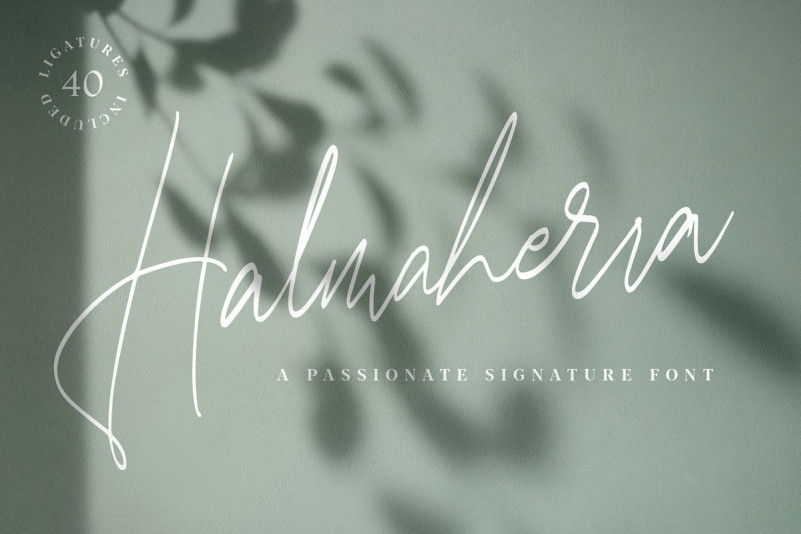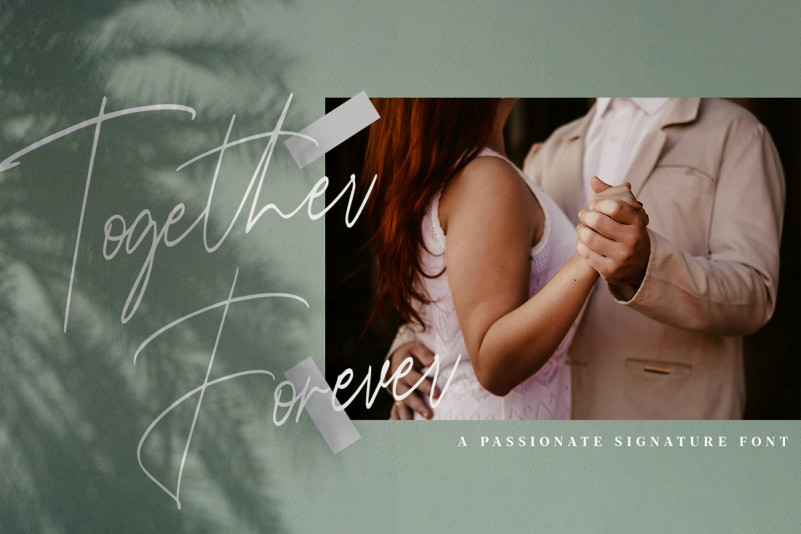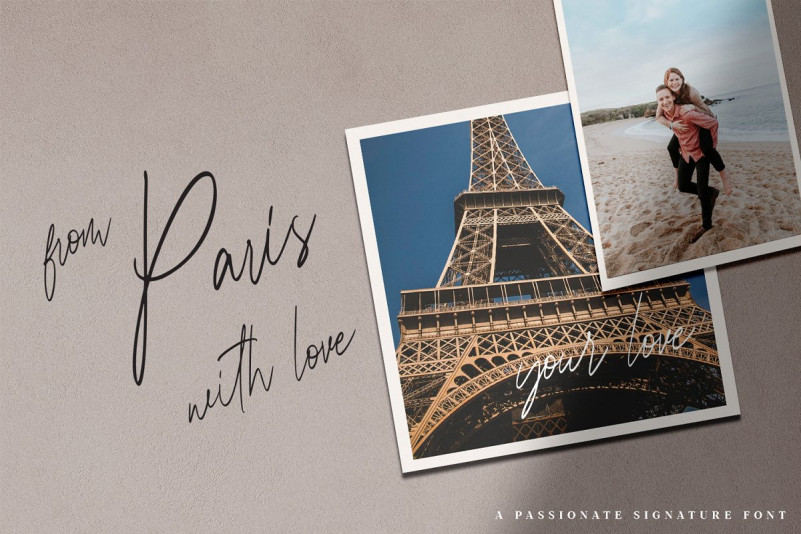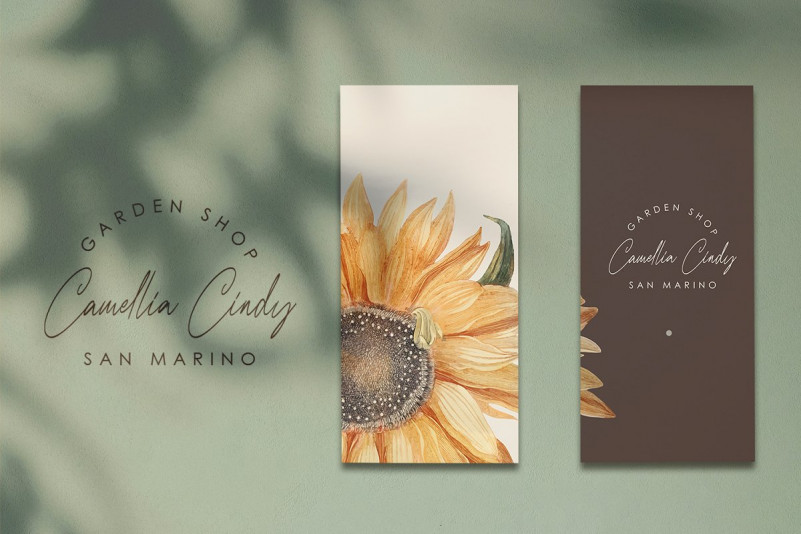
Halmaherra Signature Font
Halmaherra Signature is passionate calligraphy signature with contemporary, It is perfect for blogging, social media, branding, product packaging, wedding invitations, branding, headlines, signage, labels, signature, book covers, posters, quotes and more.